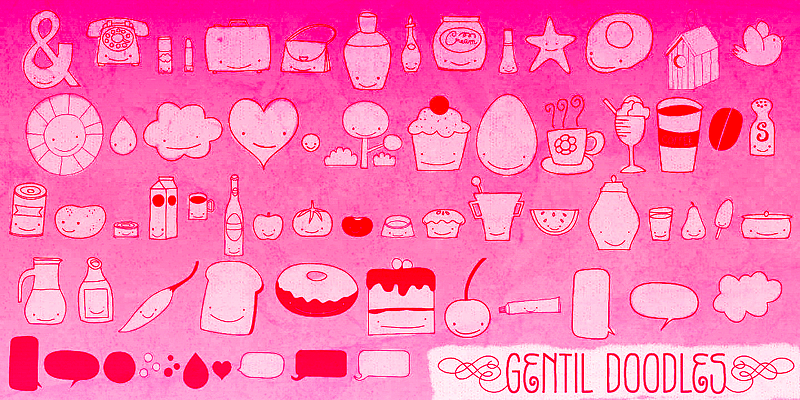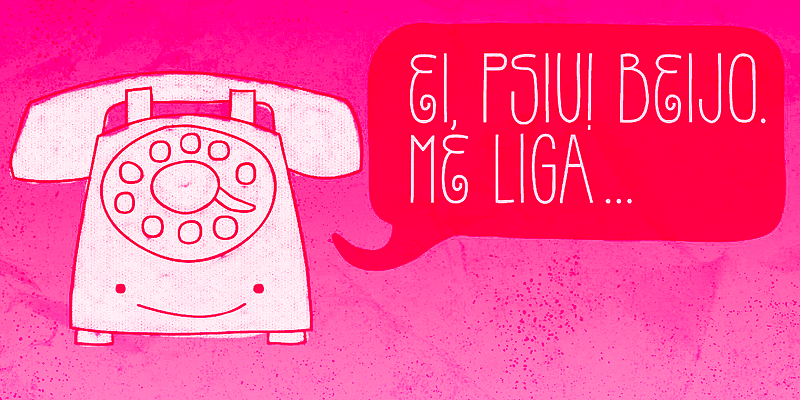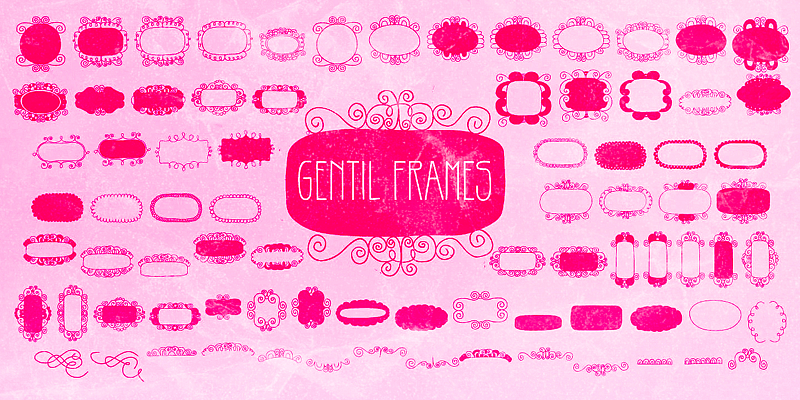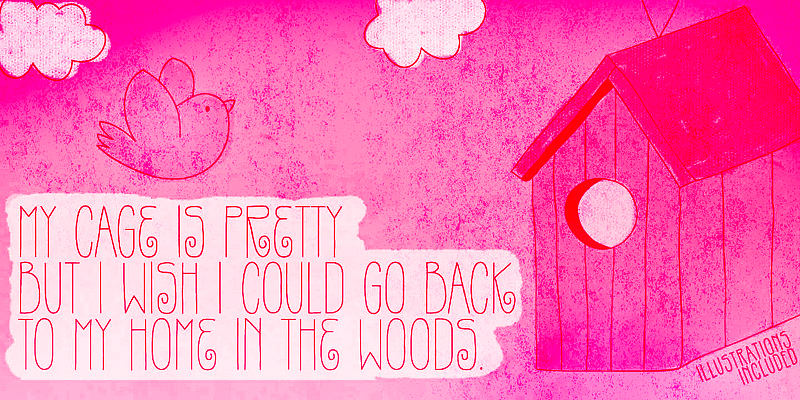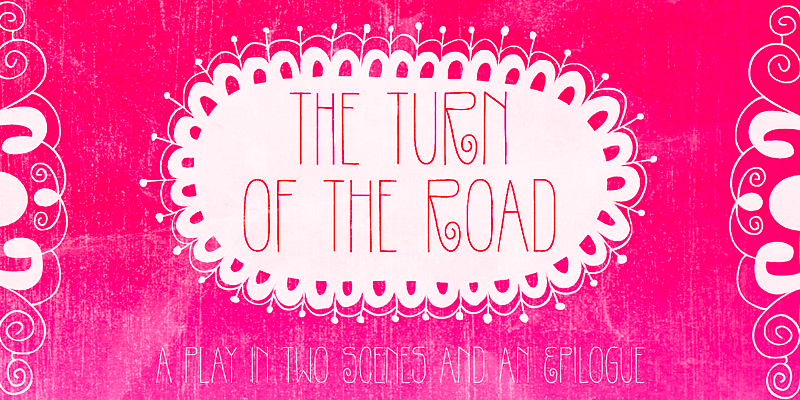
Gentil is a charming hand-drawn display typeface. This sweet and friendly family will undoubtedly fit various design applications that need more character. It comes in Regular and Bold, along with Frames and Doodles. Picture Gentil in use for packaging, book covers, scrapbooks, journals, greeting cards, or anywhere else you might need a touch of cute.